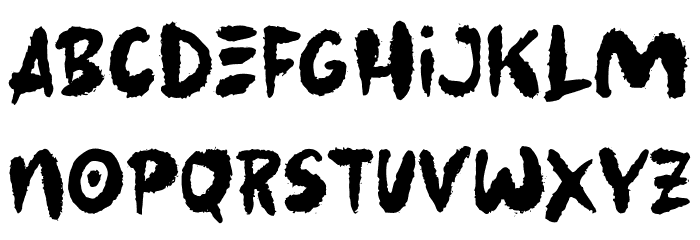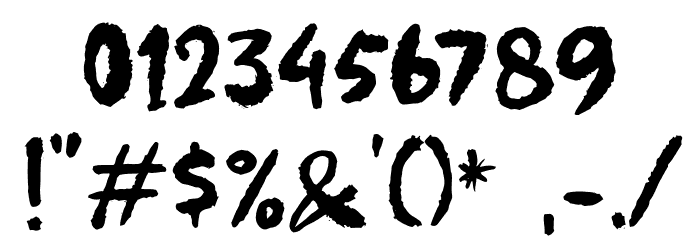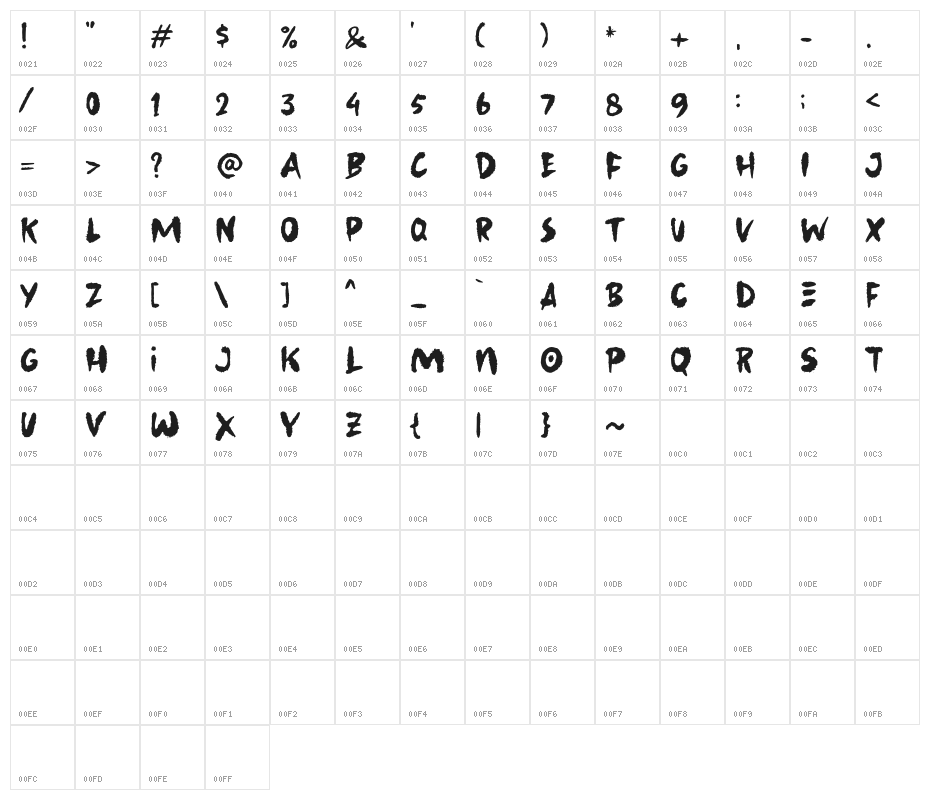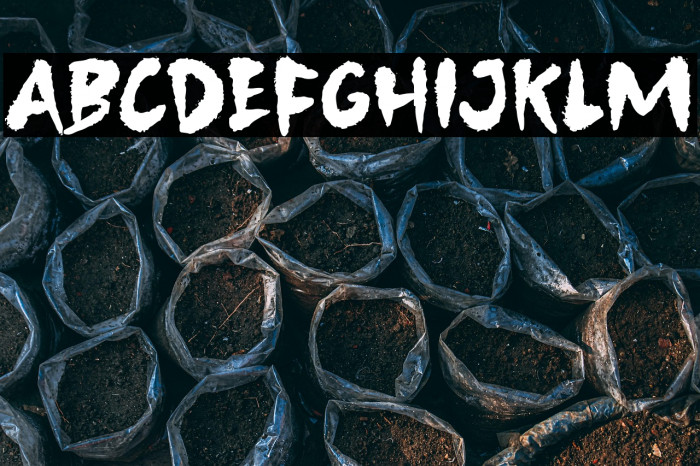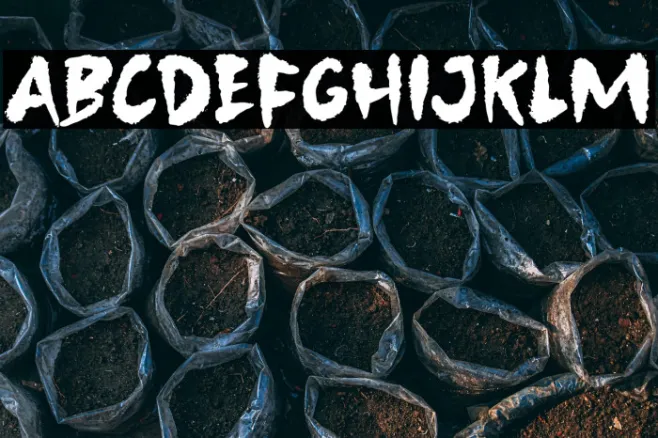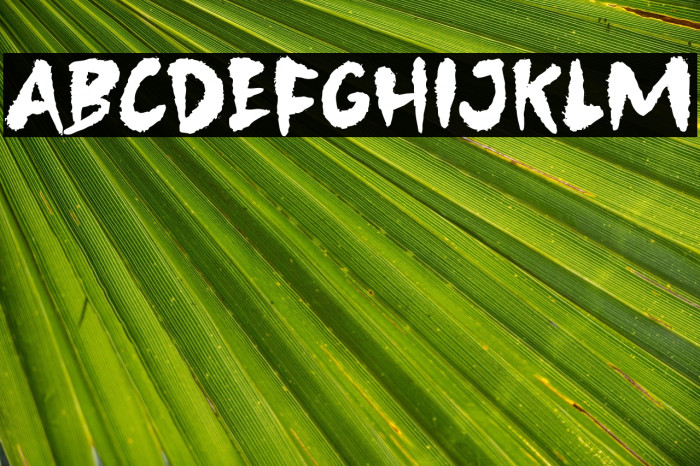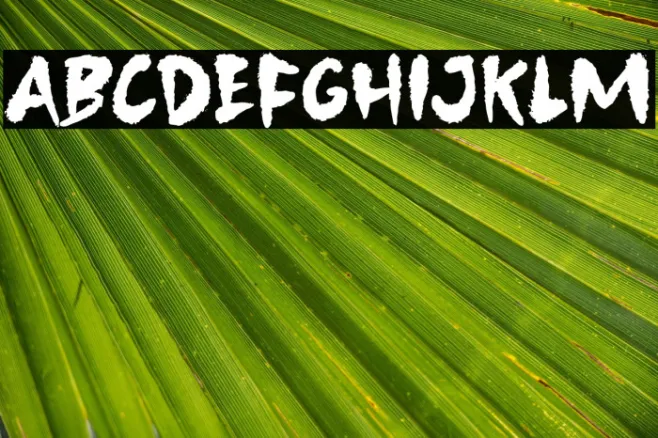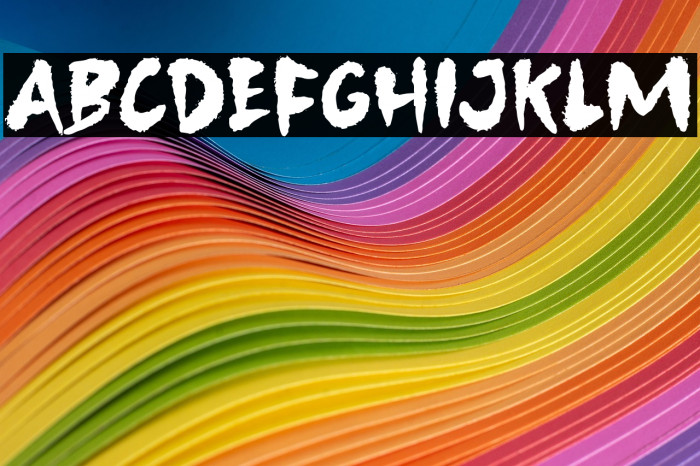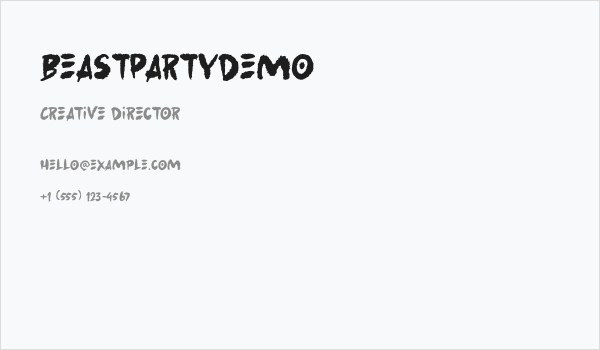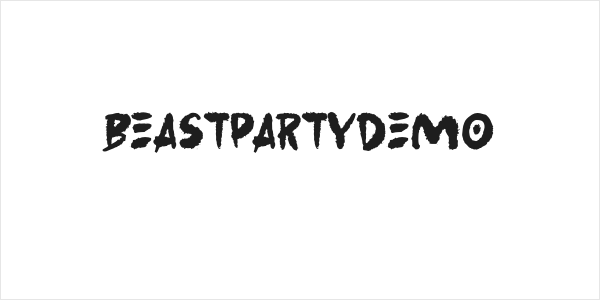
BeastPartyDemo Font
This font features a bold, energetic style with a hand-painted appearance. The letters are characterized by their thick, uneven strokes, giving them a raw and dynamic feel. The uppercase and lowercase letters maintain a consistent boldness, while the numbers and special characters follow the same expressive style. The font's rough edges and irregular shapes contribute to its lively and spontaneous look, making it ideal for projects that require a touch of creativity and flair.
A bold, hand-painted style font with dynamic, uneven strokes.
- Font: BeastPartyDemo
- Proposed Projects: Perfect for posters, album covers, event flyers, and branding projects that require a bold, artistic touch.